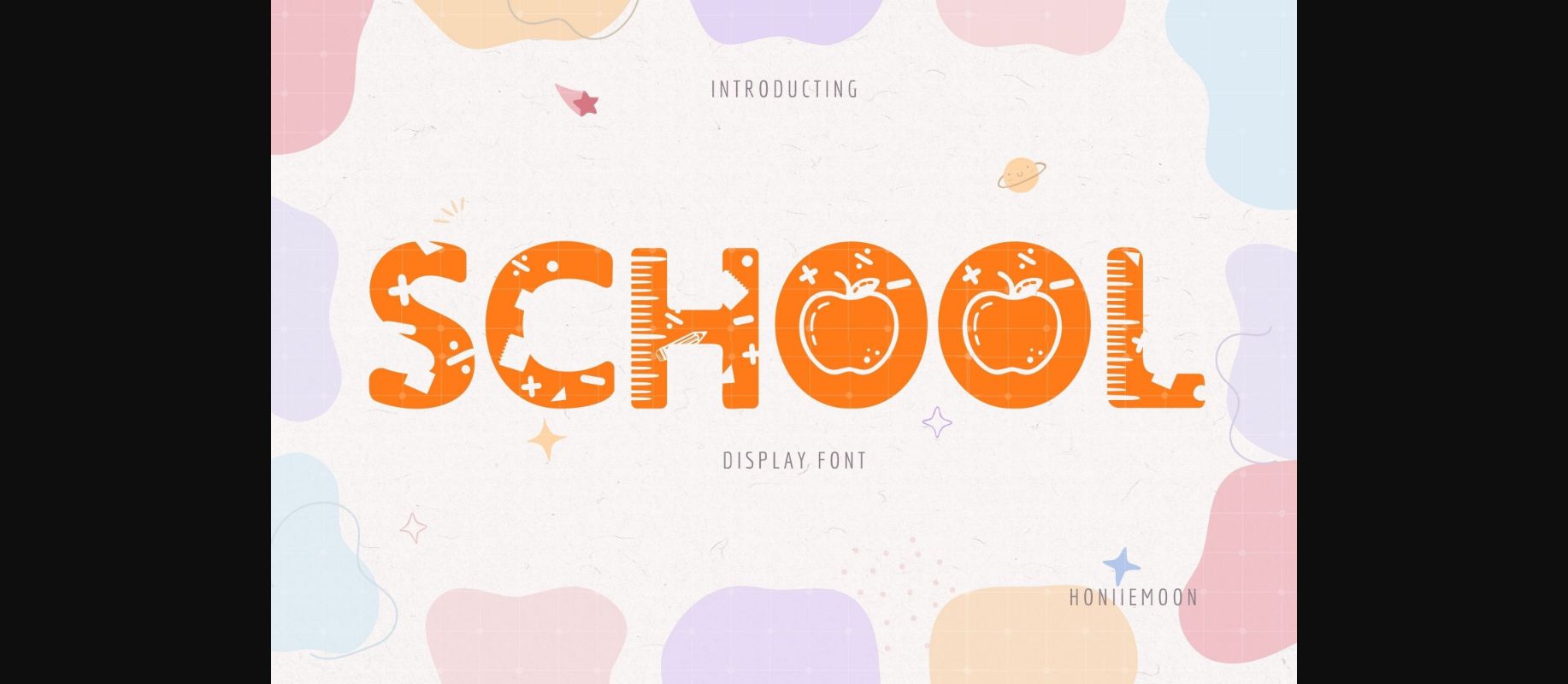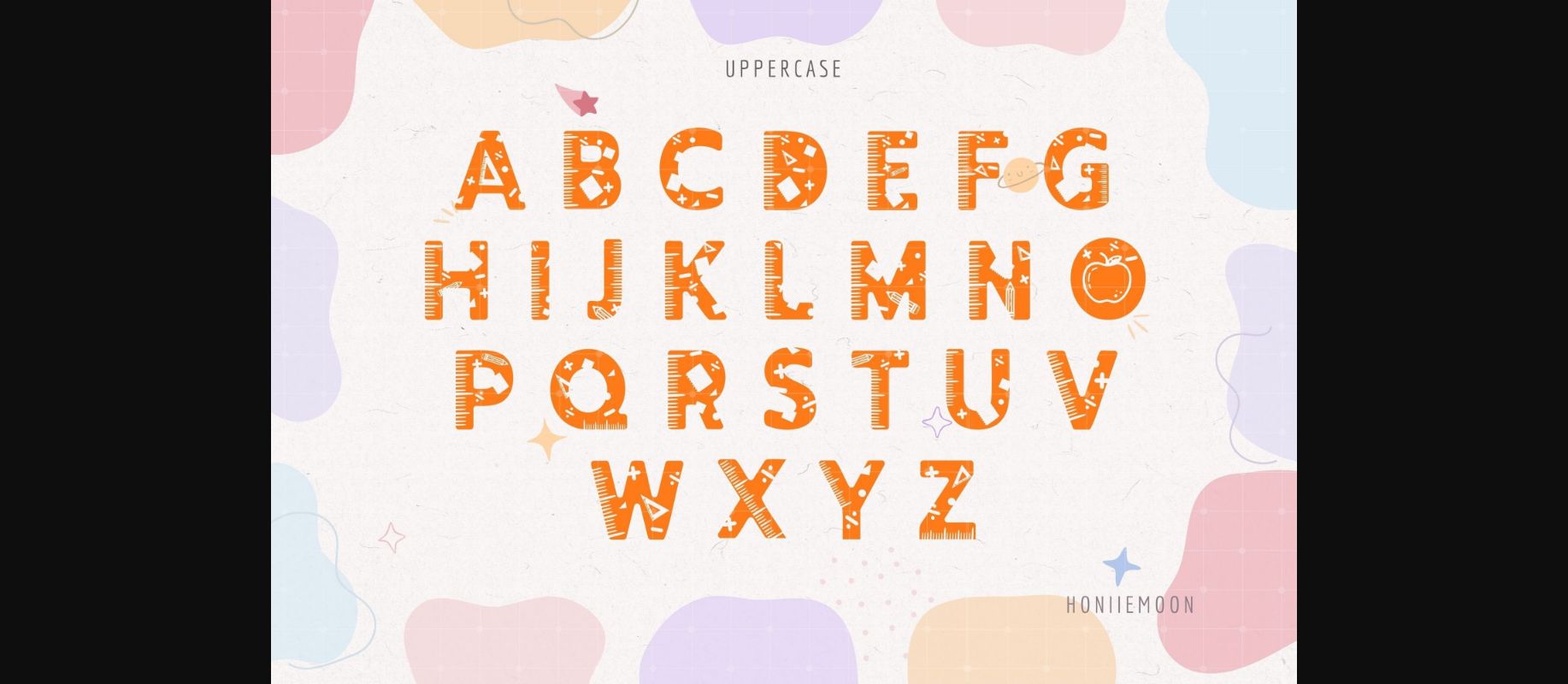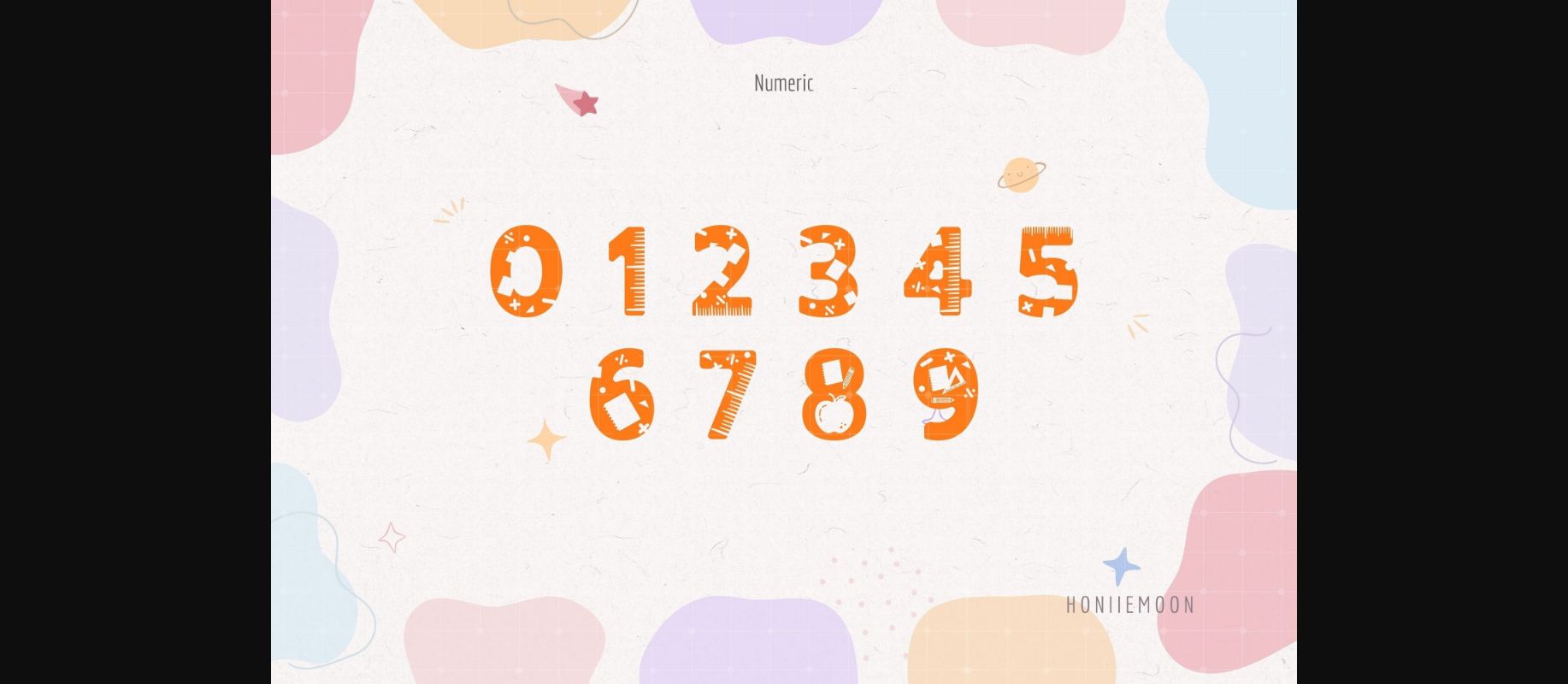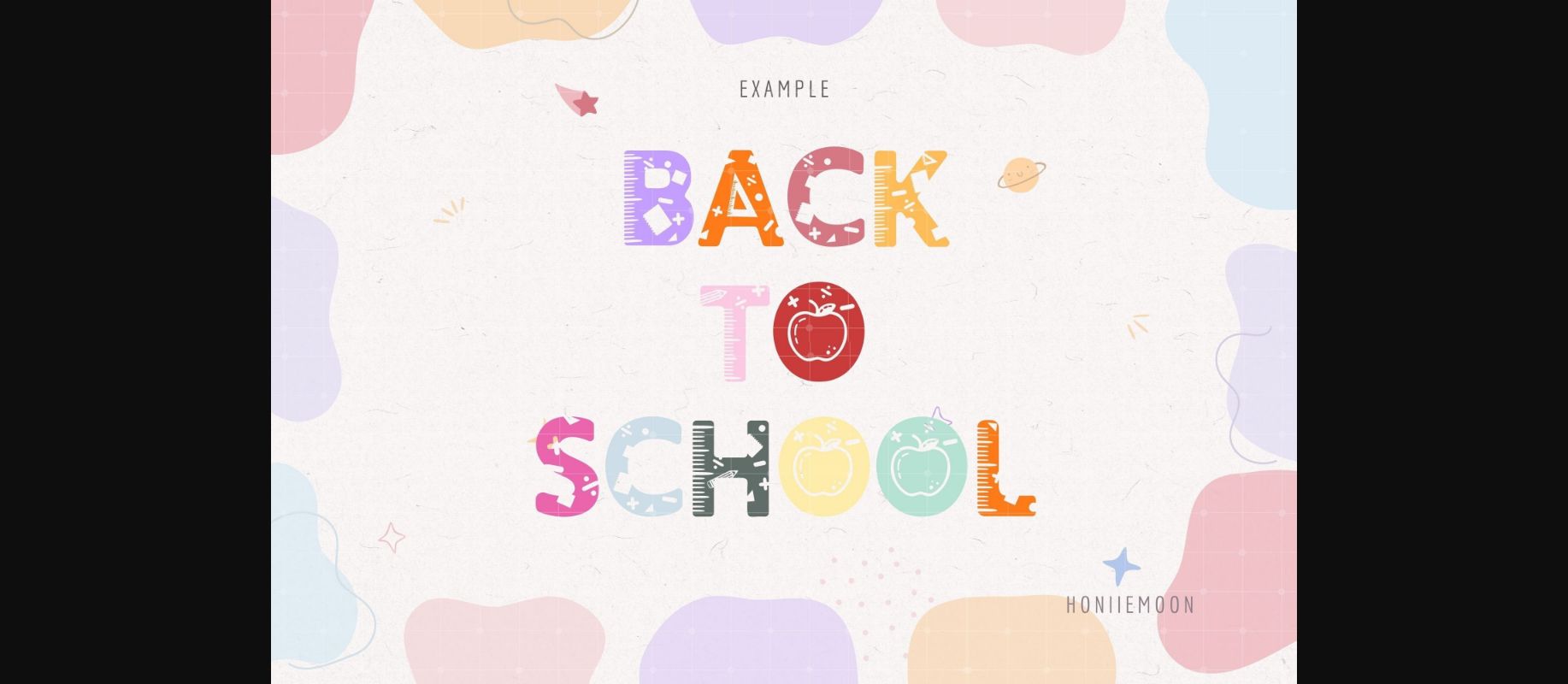
About School Font
School is a cool and fun decorative font that will enhance each of your designs. The only limit is your imagination. Add this colorful and bold display font to each of your creative ideas, and notice how it makes them come alive!